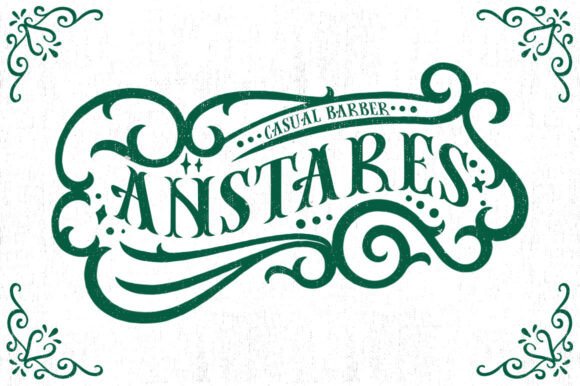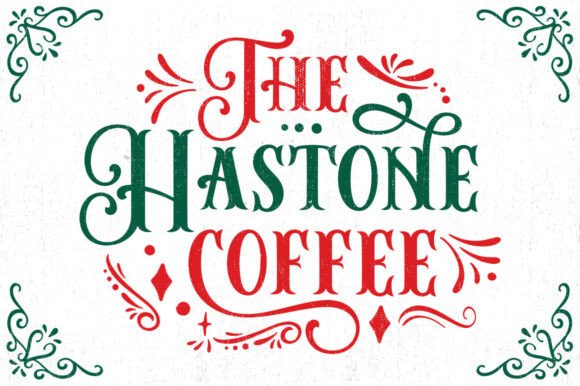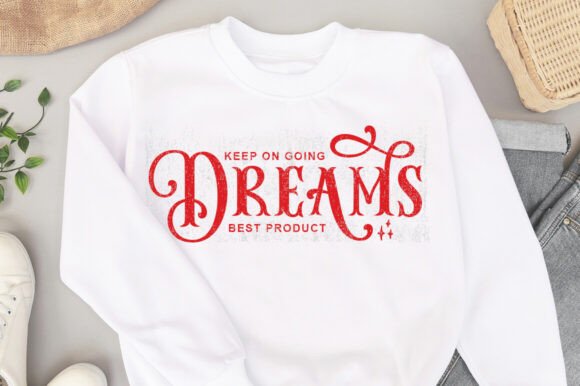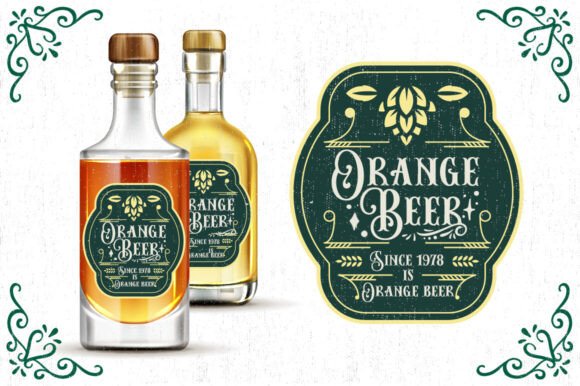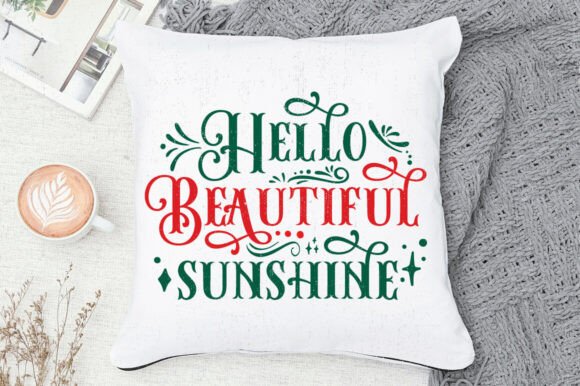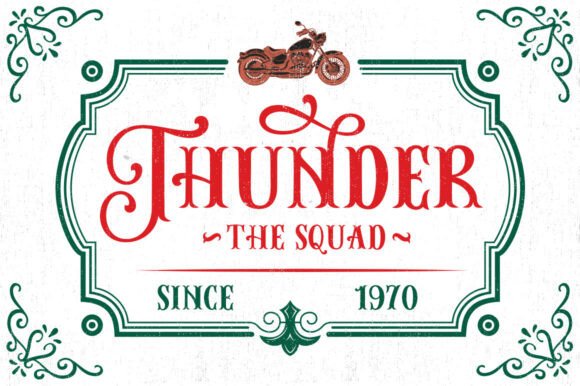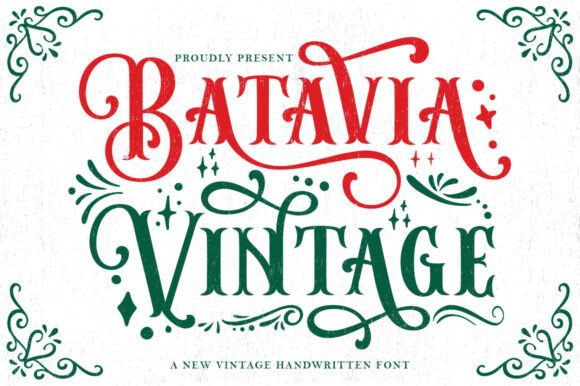
Batavia Vintage Font: Elevate Your Designs with a Touch of 19th Century Elegance
Are you looking for a font that exudes classic sophistication and timeless charm? Look no further than Batavia Vintage, a beautifully crafted decorative font inspired by the typography of the 19th century. Collected from various references such as vintage signs, logos, badges, and graphics, Batavia Vintage is the perfect addition to any design project that requires a touch of elegance and nostalgia.
What Makes Batavia Vintage Special?
Batavia Vintage is an all-caps font, carefully crafted to evoke the classic feel of traditional typography. With its elegant lines, intricate details, and unique alternates, this font is sure to add a touch of sophistication to any design. Whether you’re looking to create posters, labels, logos, signs, t-shirts, book covers, decorations, merchandise, or more, Batavia Vintage is the perfect choice.
Key Features of Batavia Vintage
• All-caps font: Batavia Vintage is an all-caps font, perfect for creating bold and eye-catching designs.
• Elegant and classic feel: With its intricate details and elegant lines, Batavia Vintage is sure to add a touch of sophistication to any design.
• Unique alternates: This font includes unique alternates, allowing you to add some extra flair to your designs.
• PUA encoded: Batavia Vintage is PUA encoded, making it easy to access all the amazing glyphs and ligatures.
Uses for Batavia Vintage
Batavia Vintage is a versatile font that can be used for a wide range of design projects, including:
• Posters: Create eye-catching posters with Batavia Vintage, perfect for advertising events, promotions, or products.
• Labels: Add a touch of elegance to your labels with Batavia Vintage, perfect for product packaging or branding.
• Logos: Create a lasting impression with Batavia Vintage, perfect for logos, business cards, or letterheads.
• Signs: Batavia Vintage is perfect for creating signs, whether it’s for a storefront, a restaurant, or a special event.
• T-shirts and merchandise: Add a touch of classic style to your t-shirts and merchandise with Batavia Vintage.
• Book covers: Create a stunning book cover with Batavia Vintage, perfect for fiction, non-fiction, or children’s books.
• Decorations: Use Batavia Vintage to create beautiful decorations, such as wall art, invitations, or party decorations.
Why Choose Batavia Vintage?
With so many fonts available, why choose Batavia Vintage? Here are just a few reasons:
• Unique and distinctive: Batavia Vintage is a one-of-a-kind font that will set your designs apart from the rest.
• Elegant and sophisticated: This font exudes classic sophistication, making it perfect for designs that require a touch of elegance.
• Versatile: Batavia Vintage can be used for a wide range of design projects, from posters to logos to merchandise.
• Easy to use: With its PUA encoding, Batavia Vintage is easy to use and access all the amazing glyphs and ligatures.
If you’re looking for a font that will add a touch of classic elegance to your designs, look no further than Batavia Vintage. With its intricate details, elegant lines, and unique alternates, this font is sure to impress. Whether you’re a designer, crafter, or DIY enthusiast, Batavia Vintage is the perfect addition to your font collection.